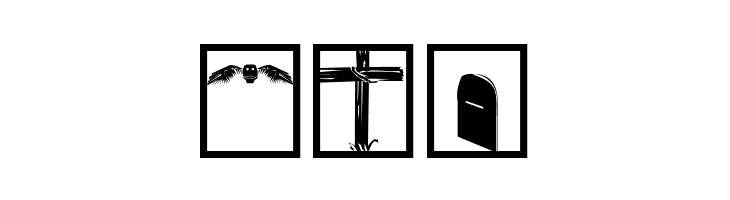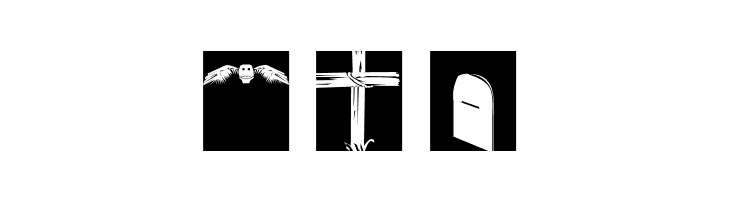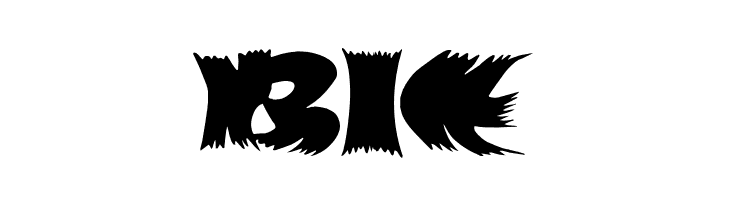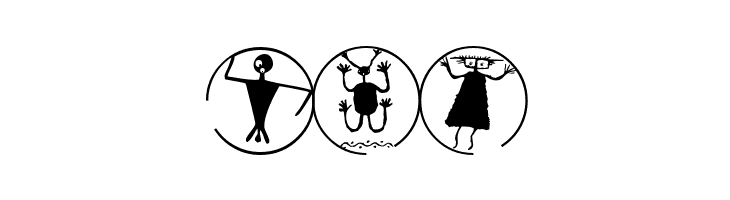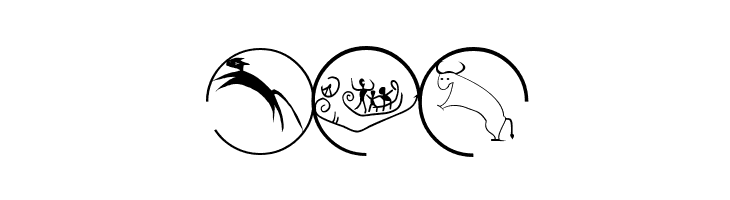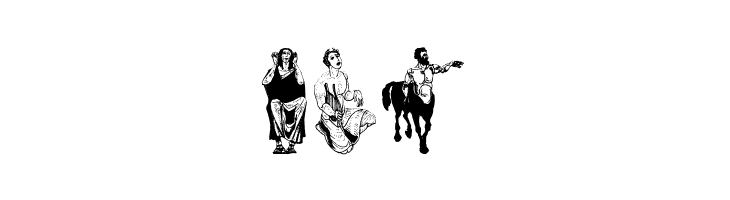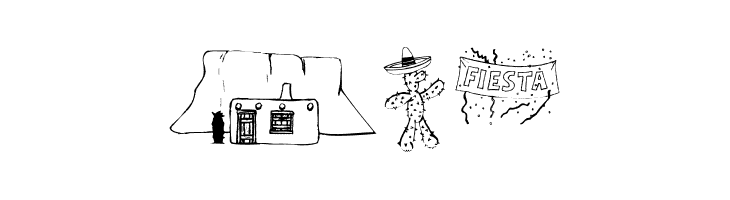
• MourningTrauer
A collection of mourning-themed icons with detailed silhouettes in black and white.
• MourningTrauerInverse
A decorative font with characters designed as tombstones and mourning symbols.
• Callimundial
A dynamic, calligraphic font with sharp, angular strokes and high contrast.
• Hurrikanish
A bold, jagged font with a stormy, dynamic appearance.
• CaveBatsTwoB
A pictographic font inspired by ancient cave paintings, featuring stylized figures and animals.
• CavebatsOneA
A decorative set of symbols inspired by ancient cave art, featuring animals and abstract designs.
• LatinumTallX
A classic serif font with elegant, elongated letterforms and high contrast.
• Facialish
A decorative font featuring whimsical, mask-like characters with intricate designs.
• GodsAndHeroes
Illustrative font with mythological figures as characters.
• Hispanish
Cartoonish, illustrative font themed around Hispanic and Spanish culture.